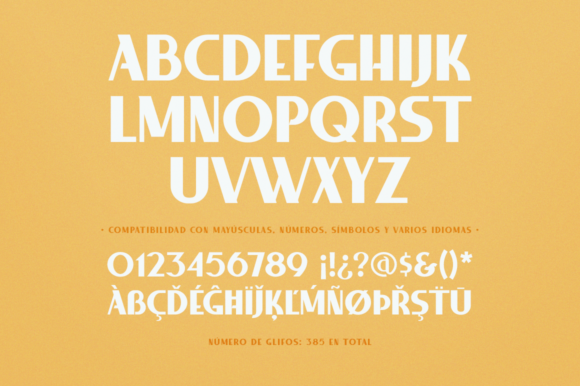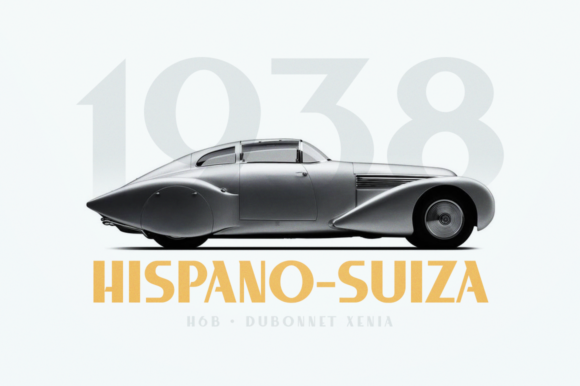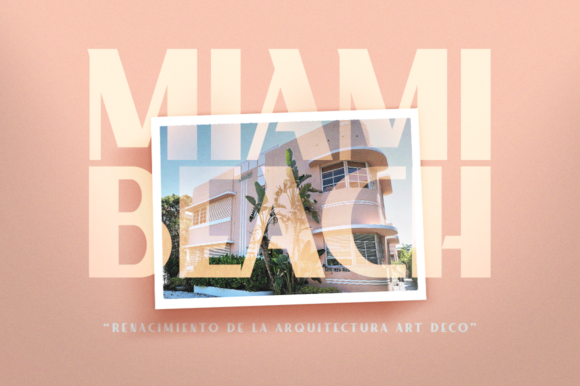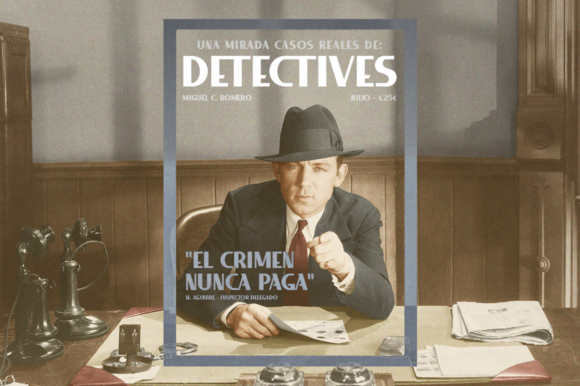
Introducing Farrah Font: The Ultimate Display Font for Bold Creations
Are you tired of using the same old fonts for your designs? Look no further than Farrah Font, a cool, bold, and assertive display font that’s sure to take your creations to the next level. With its uniquely shaped letters and imposing presence, Farrah Font is the perfect choice for designers and crafters who want to add a distinct touch to their work.
What Makes Farrah Font So Special?
Farrah Font is a one-of-a-kind display font that’s designed to make a statement. Its bold and assertive style is perfect for creating eye-catching headlines, titles, and logos that demand attention. The font’s uniquely shaped letters are carefully crafted to provide a distinctive look that’s both modern and edgy.
Whether you’re working on a branding project, a website design, or a craft project, Farrah Font is the perfect choice for adding a touch of personality and style. Its versatility and flexibility make it easy to use in a wide range of applications, from digital media to print materials.
Key Features of Farrah Font
- Bold and Assertive Style: Farrah Font is designed to make a statement with its bold and assertive style that’s perfect for creating eye-catching headlines and titles.
- Uniquely Shaped Letters: The font’s uniquely shaped letters provide a distinctive look that’s both modern and edgy.
- Versatile and Flexible: Farrah Font is easy to use in a wide range of applications, from digital media to print materials.
- Easy to Read: Despite its bold style, Farrah Font is easy to read, making it perfect for use in body text as well as headlines.
How to Use Farrah Font in Your Designs
Here are a few tips for using Farrah Font in your designs:
- Use it as a Headline Font: Farrah Font is perfect for use as a headline font, where its bold and assertive style can really make an impact.
- Pair it with a Simple Font: For body text, pair Farrah Font with a simple font like Arial or Helvetica to create a striking contrast.
- Experiment with Colors and Textures: Farrah Font looks great in a variety of colors and textures, so don’t be afraid to experiment and find the look that works best for your project.
Why Designers and Crafters Love Farrah Font
Farrah Font has quickly become a favorite among designers and crafters, who love its unique style and versatility. Here are just a few reasons why:
- It’s Highly Versatile: Farrah Font can be used in a wide range of applications, from digital media to print materials.
- It’s Perfect for Creating Eye-Catching Headlines: Farrah Font’s bold and assertive style makes it perfect for creating eye-catching headlines and titles.
If you’re looking for a cool, bold, and assertive display font that’s sure to take your creations to the next level, look no further than Farrah Font. With its uniquely shaped letters and imposing presence, Farrah Font is the perfect choice for designers and crafters who want to add a distinct touch to their work. So why wait? Download Farrah Font today and start creating bold and eye-catching designs that demand attention!